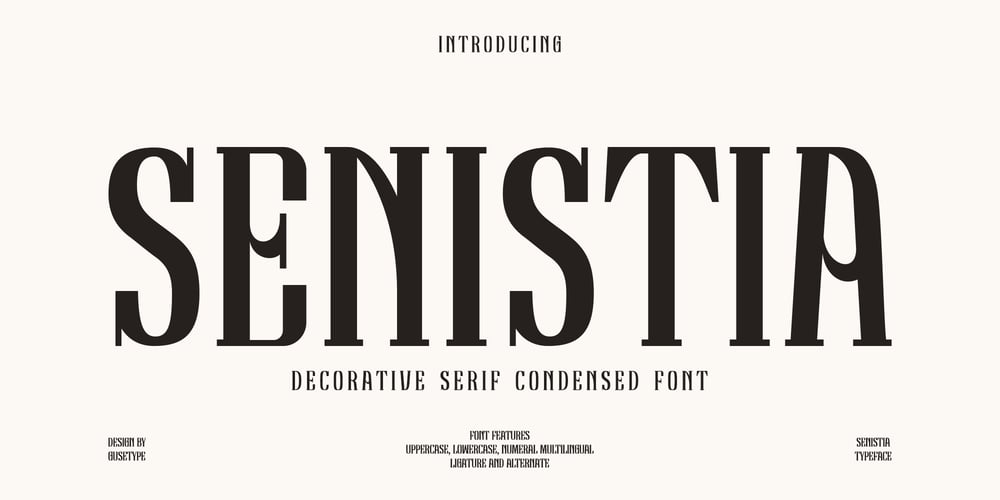
Senistia Font Family was designed by Guntur Septyan and published by GuseType. Senistia contains 1 styles and family package options. Senistia is a decorative serif font with condensed and elegant glyphs characteristics. This font canbe used in a various of designs such as posters, magazines, logos, headlines, brands & identities, and more.Feature:- Kerning- Alternative Style and Ligature- Uppercase and Lowercase Letters- Numeral- Punctuation and Symbols- Multilingual Supports